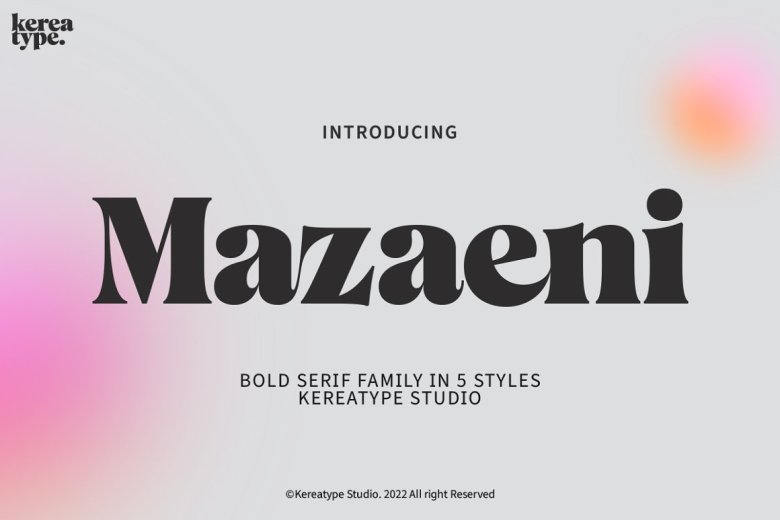
Mazaeni Font
Mazaeni is the boldserif next typefamily Mazaeni Comes with 5 Weight regular to Extra Black it have a simple, elegant and usable as possible​. Whether you’re looking for something bold and playful, welcome Mazaeni. A new display typeface that suitable logotype, fun headline or another editorial font purposes. Support a variety of complex language and feature such as optional-ligature, Open Type alternate, etc.
“Also the thing, but about Mazaeni is the letter spacing”. Yes I did so on purpose to make it as clean a read for if you were going to use this script as body copy, ideally though just tighten up the leading if using for display (approx -5 to -25).
Mazaeni Serif Font Family